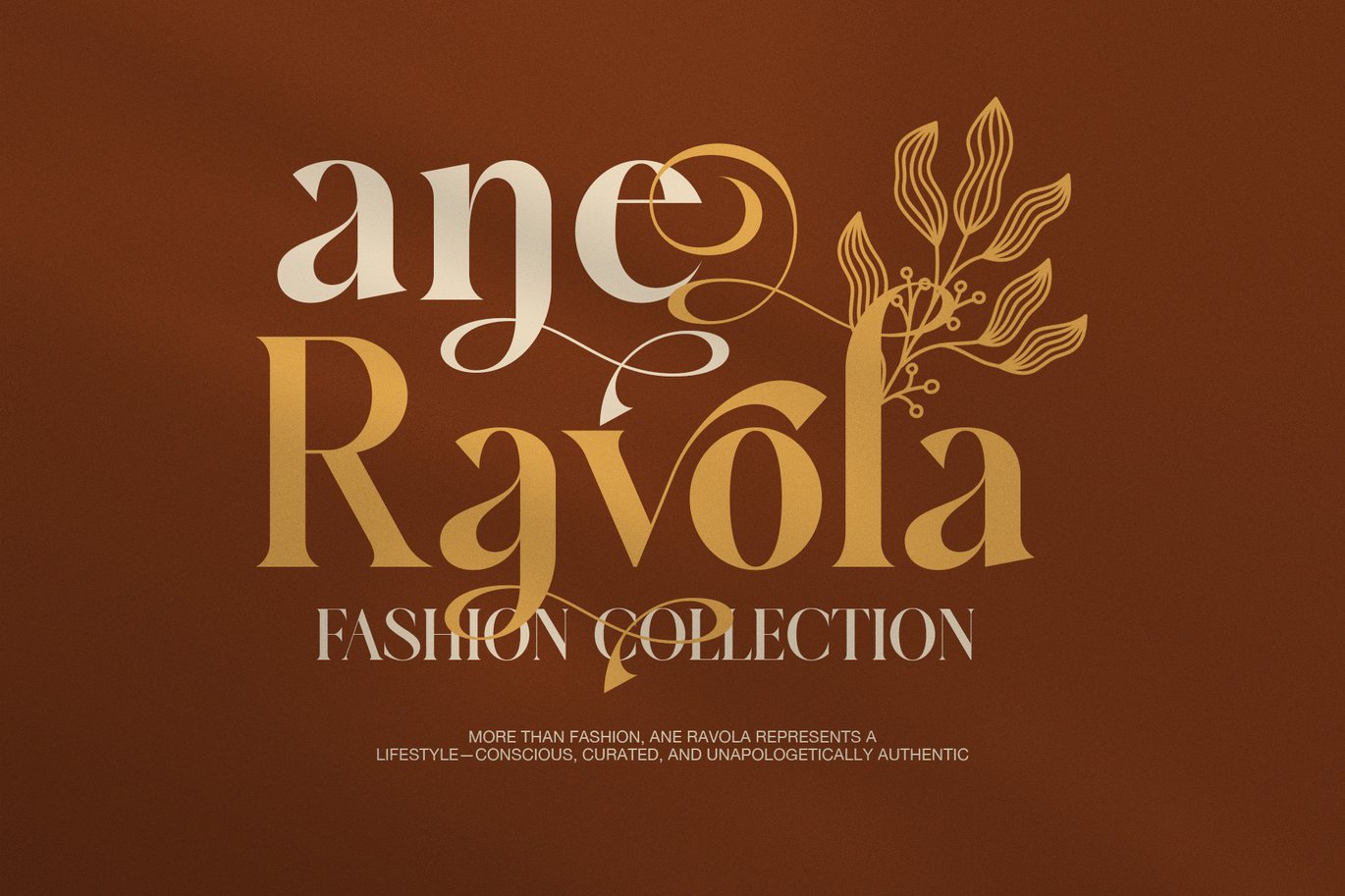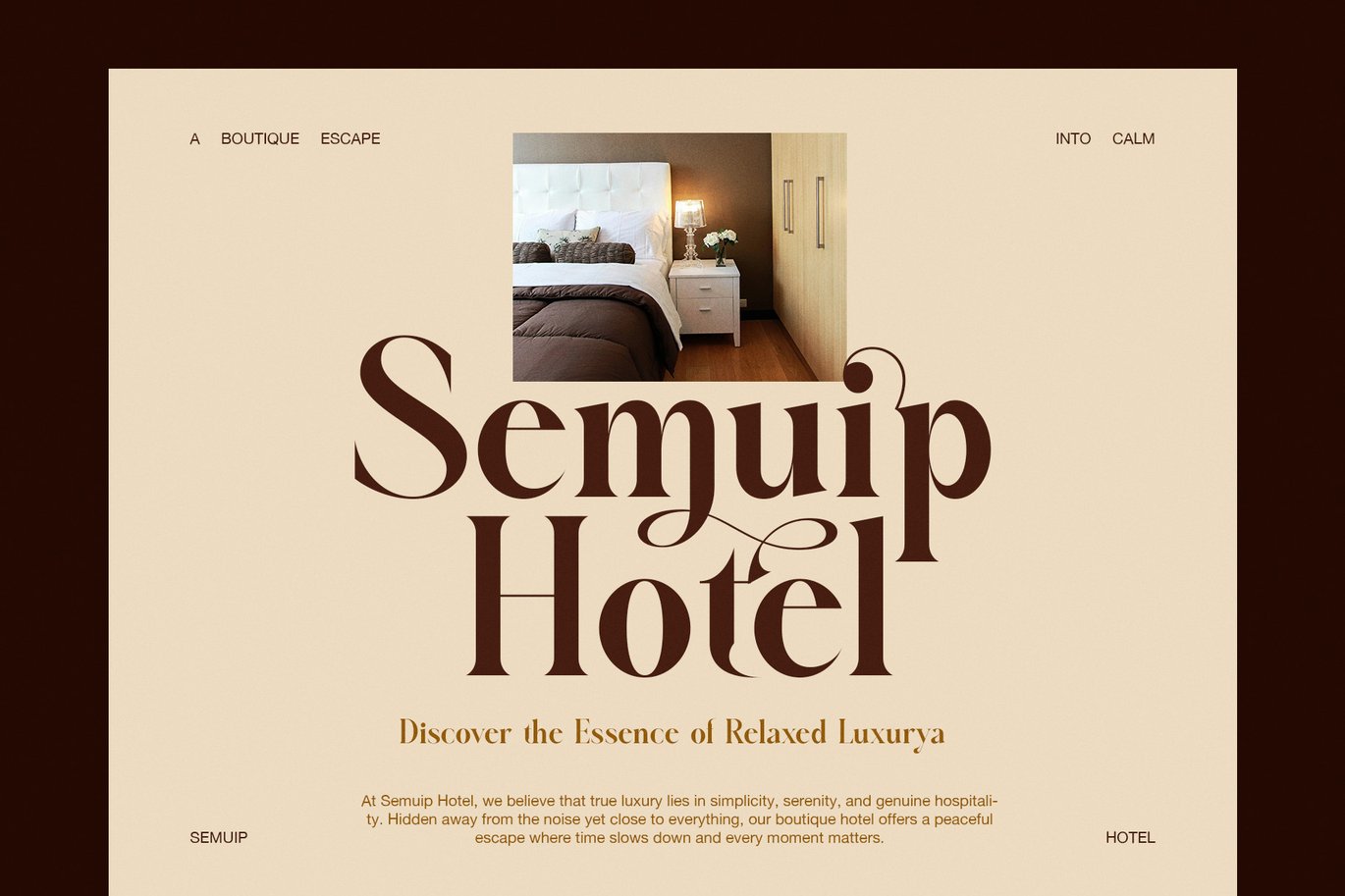
Halinka – Elegant Modern Serif Font
Halinka – Elegant Modern Serif Font is a versatile typeface ideal for various projects, including logos, branding, posters, blog headers, advertisements. The free version includes a full set of uppercase and lowercase letters, available in OTF format.